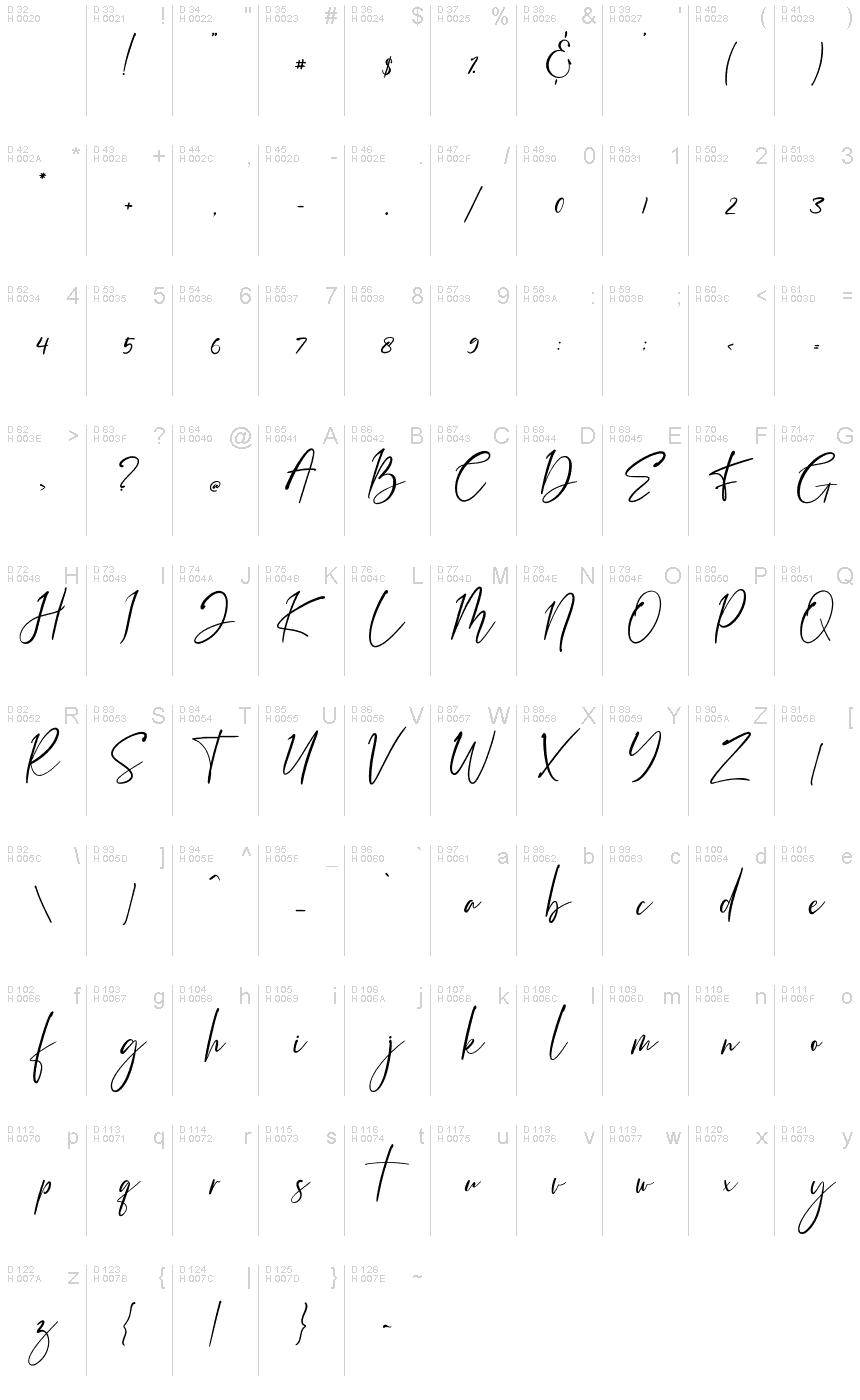
Bernaillo
today i will introduce my new font named Bernaillo. a handwritten style font that I created manually and original by me. Bernaillo fonts are fonts that are very suitable for use in a variety of uses. equipped with uppercase letters, lowercase letters, numeral, punctuation, has 84 beautiful ligature, and multilingual support. Bernaillo fonts can be used in various uses such as watermarks, signature and signature logos, business cards, brand names, and many more.
- Bernailo script includes capital and lowercase letters, and 84 Ligatures
- Numbers + punctuation
- Foreign language support